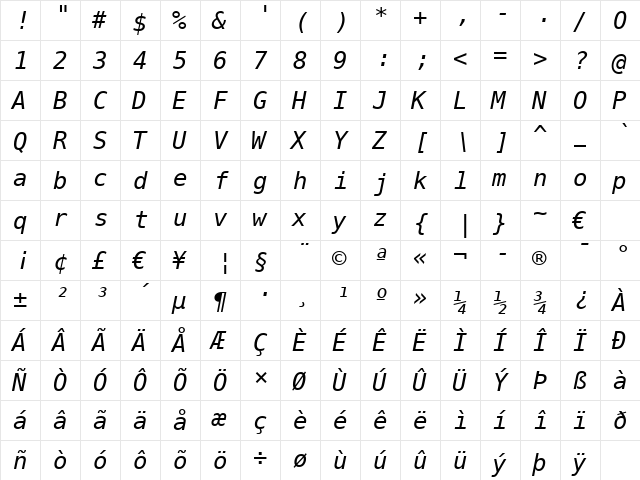
PrimaSansMono BT Oblique Font Preview
PrimaSansMono BT Oblique
PrimaSansMono BT Oblique Font Details
Design Context for PrimaSansMono BT Typeface
PrimaSansMono BT brings the precise, column-aligned rhythm of monospaced typography to designs that value technical clarity and systematic order. The slanted form adds forward momentum and visual energy.
Pro Tip: Use PrimaSansMono BT with slightly increased line-height for extended reading — fixed-width spacing can feel dense in longer passages without extra breathing room.